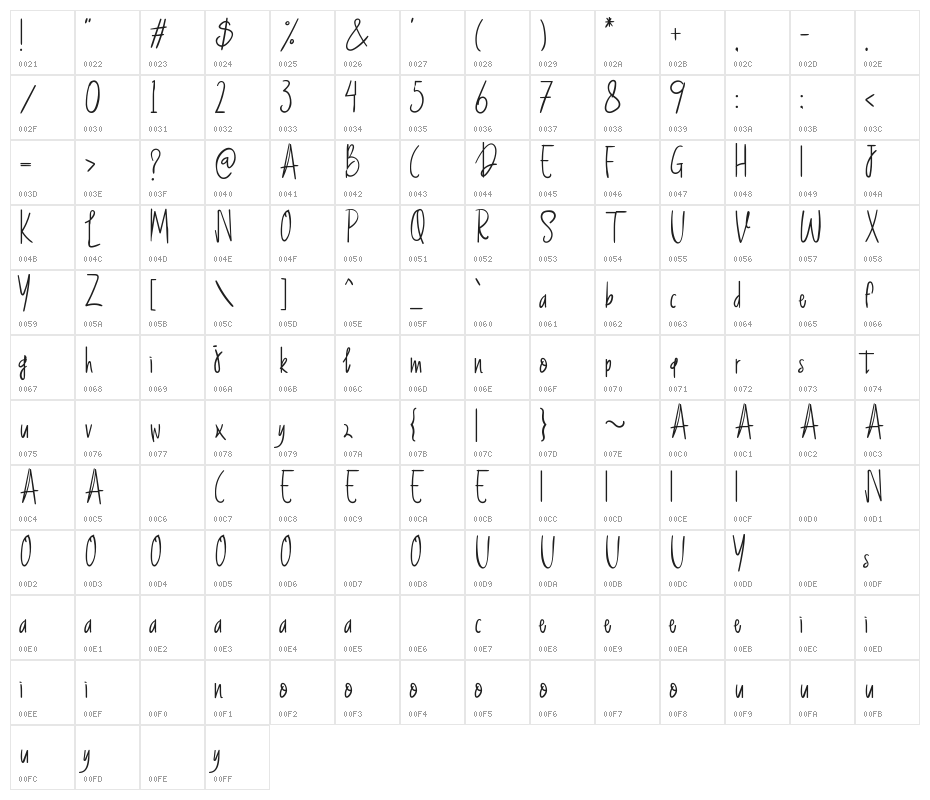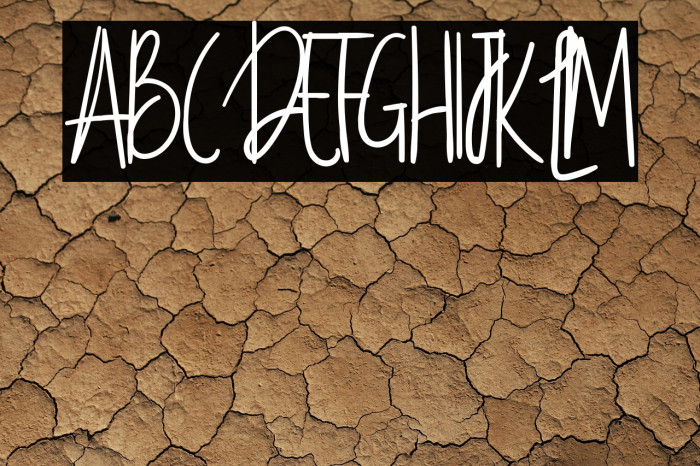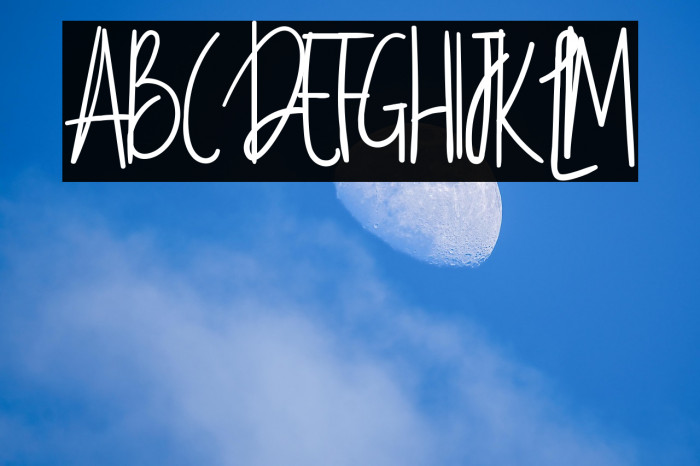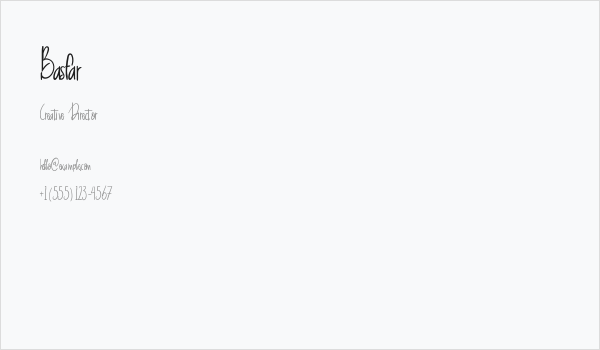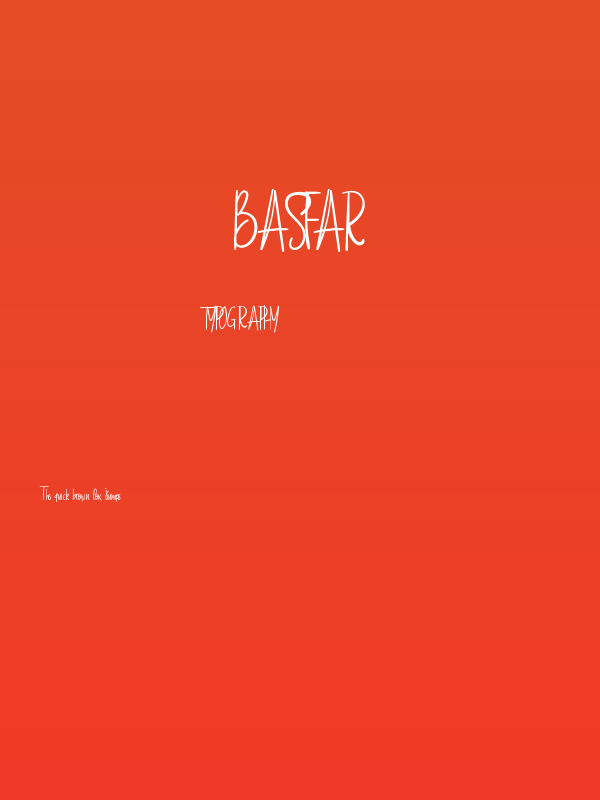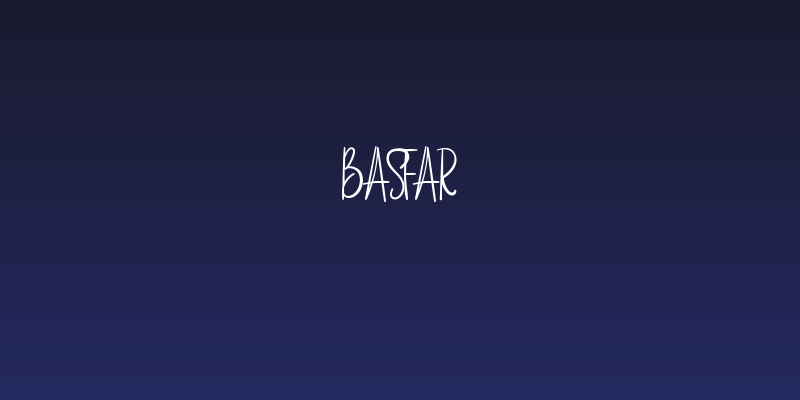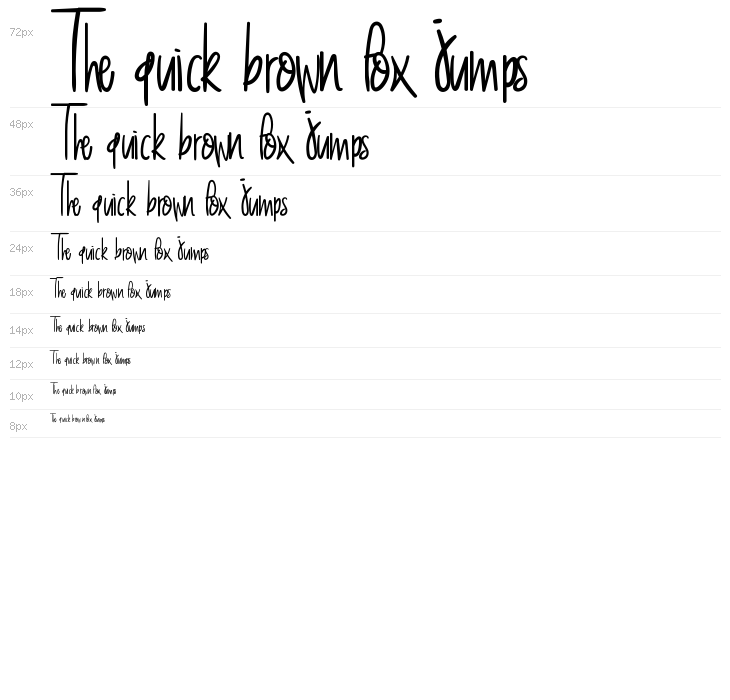
Basfar Font
Basfar Description
This font features a playful and energetic handwritten style, characterized by tall, narrow letters with a slightly irregular baseline. The strokes are thin and fluid, giving it a casual and informal appearance. The uppercase letters are particularly elongated, while the lowercase letters maintain a consistent height, adding to the whimsical nature of the design. Numbers and special characters follow the same lively aesthetic, making the font versatile for creative projects. Its unique personality makes it suitable for designs that require a personal touch, such as greeting cards, invitations, or artistic posters.
| Width | Condensed |
| Overall Style | Casual, Playful |
| Use Case | Headlines, Artistic projects, Personal notes |
| Proposed Projects | Ideal for greeting cards, invitations, artistic posters, and any project needing a personal touch. |